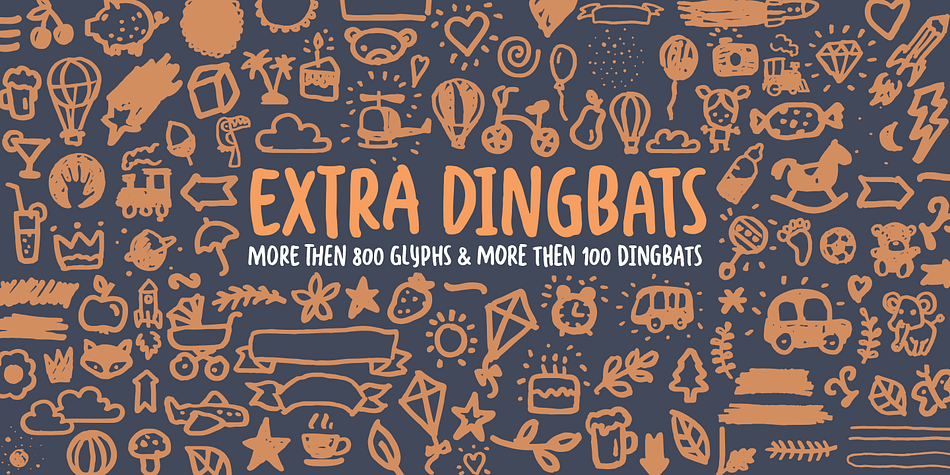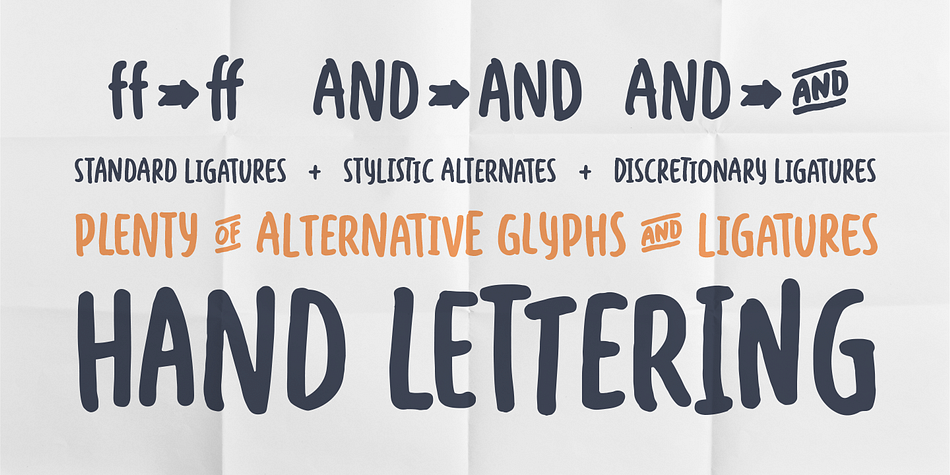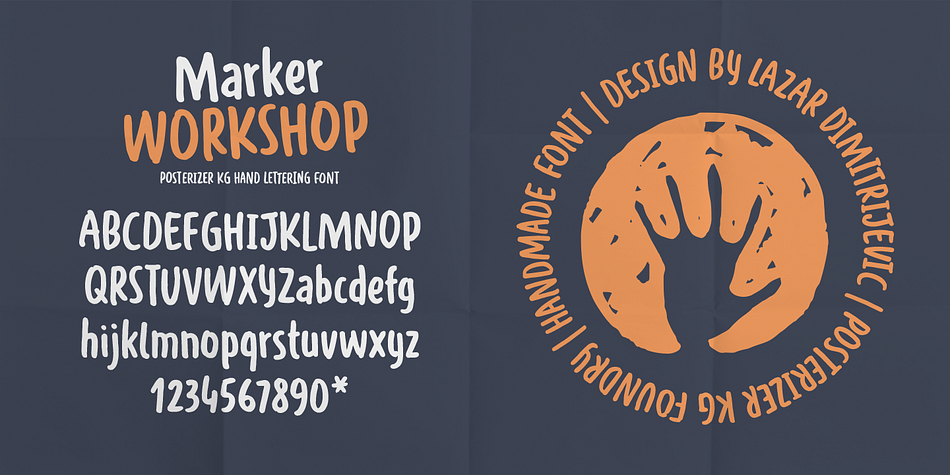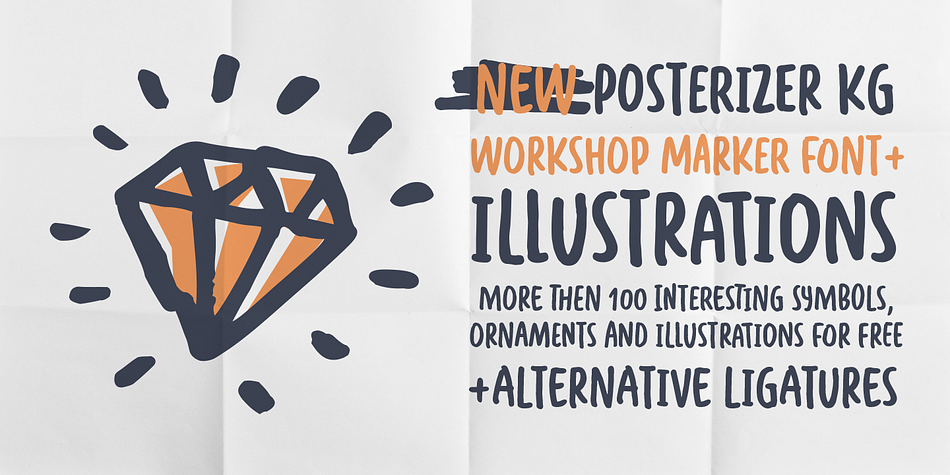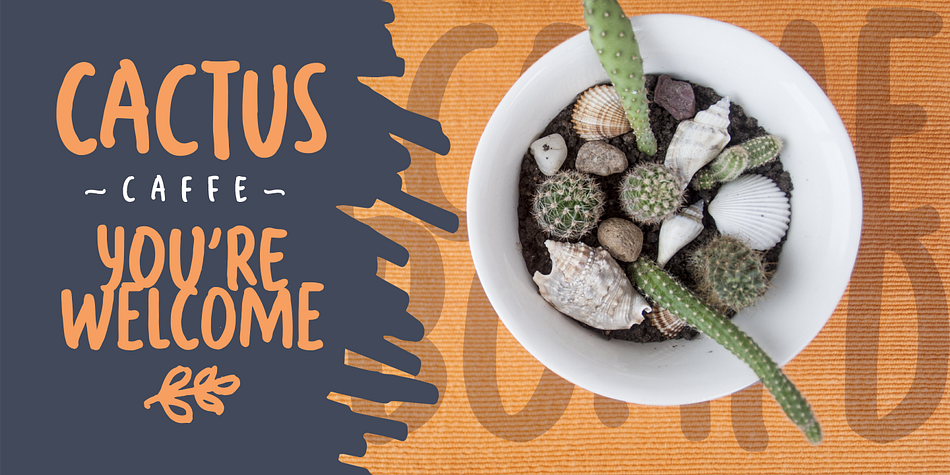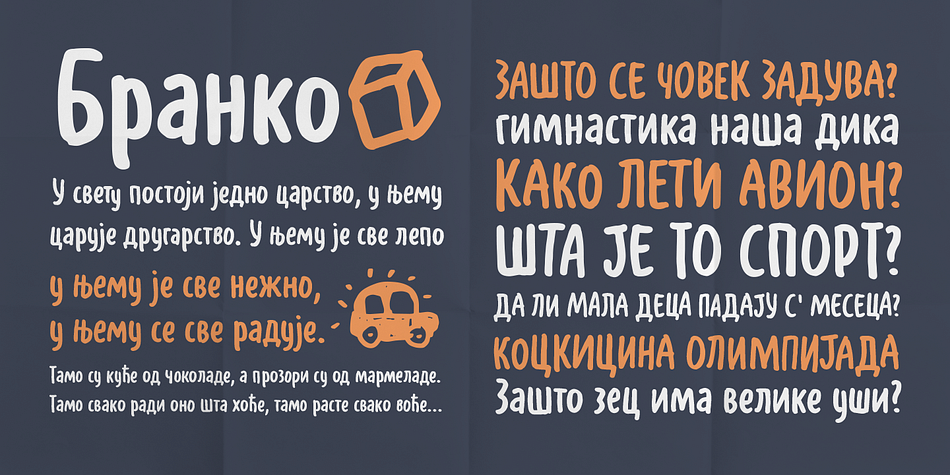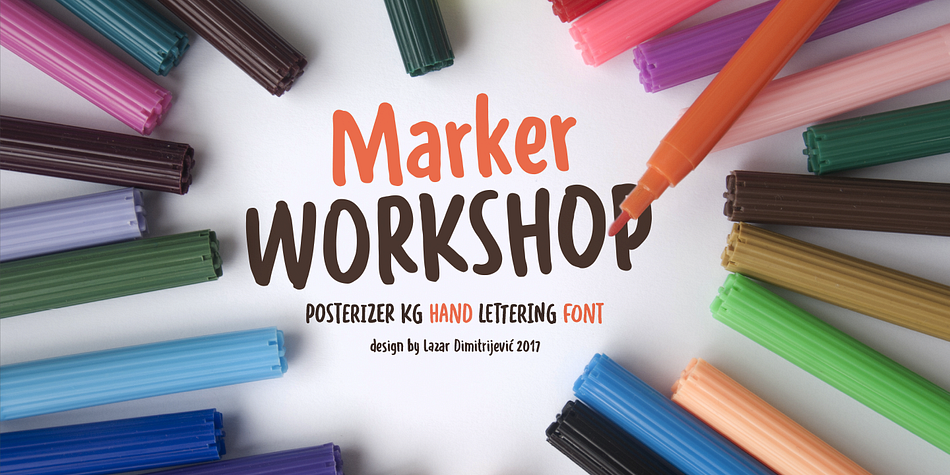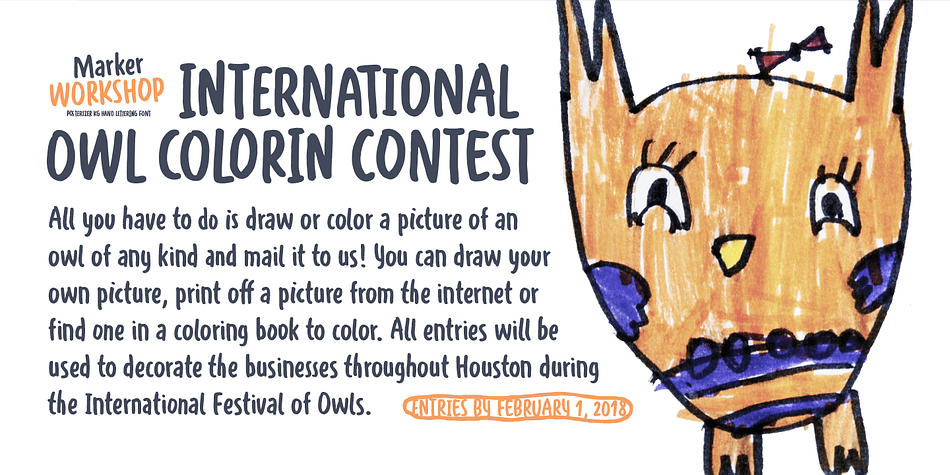
Designed by Lazar Dimitrijević, WORKSHOP Marker is a hand drawn font published by Posterizer KG.
WORKSHOP Marker is a handwritten font with a casual and modern look. You can use the alternates and ligatures to give your design a realistic, hand painted look.
If you find a single repeating glyph, you can change that by toggling between Stylistic Alternates. There are Cyrillic glyphs and more then 100 playful Dingbats in the same style.
WORKSHOP Marker is the perfect choice for all imaginative, playful and beautiful things.